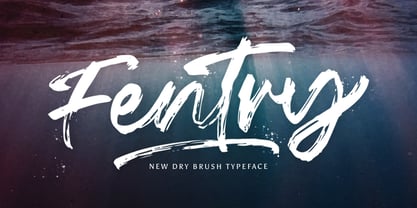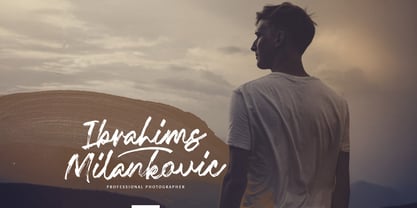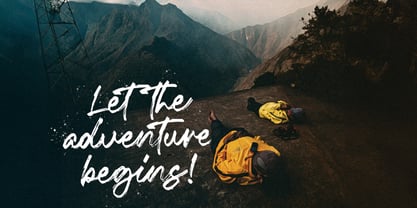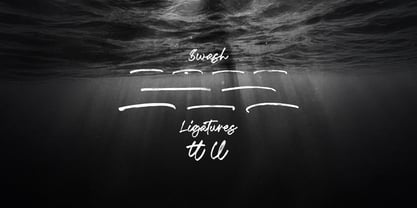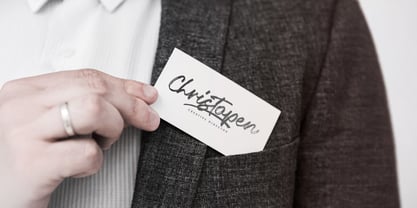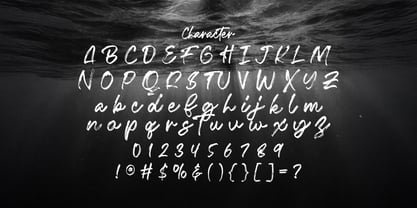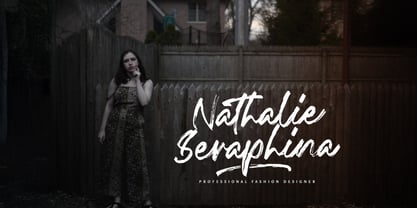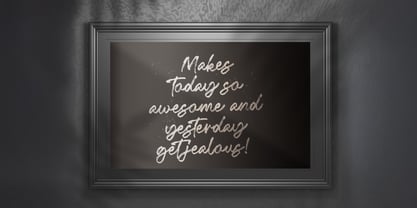
The Fentry Font Family was designed by Virgiawan Listanto and published by Stringlabs Creative Studio. Fentry contains 1 styles. More about this family
Fentry is a powerful textured brush font that combines bold strokes with gritty, handcrafted detail. Its raw, edgy look is perfect for projects that need a punch of personality and a rebellious, artistic edge. Ideal for branding, poster design, streetwear, and music-related graphics, Fentry brings an untamed energy that makes your message impossible to ignore.
Designers: Virgiawan Listanto
Foundry: Stringlabs Creative Studio